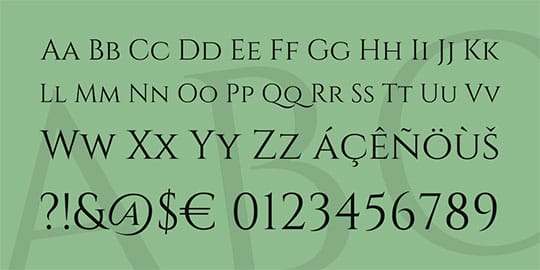
You see it on posters. You see it on banners. You see it on magazines and book covers. It’s practically everywhere.
Text is the simplest and most commonly used tool to deliver content. But plain text could easily get boring. So how do you make a simple text extraordinary? Use an awesome font. In a world of text and people with short attention span, the power of a unique font can make a huge difference.
For graphic artists and web designers, choosing a standout font is all too important. Indeed, the kind of font you use can have such an impact on the look and overall outcome of your work. Whether you’re working on logos, banners, headings, packaging or just about any creative project, you have to make sure it looks striking yet professional.
If you’re a designer or artist who’s on the lookout for some of the best fonts around, below are some you should check out right now.
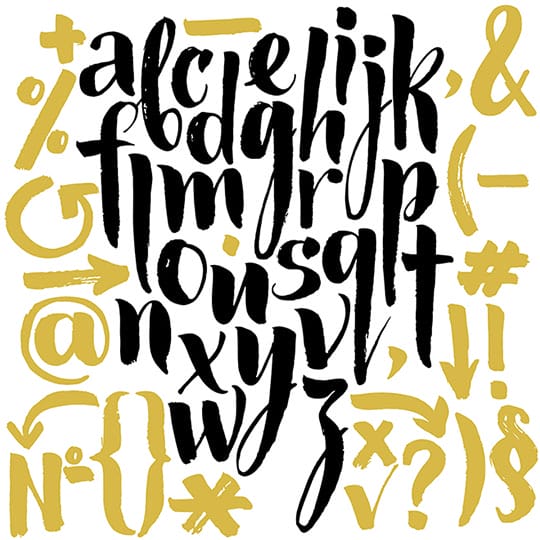
1. DENSE:
Elegant and geometric, Dense is the brainchild of Canadian artist Charles Daoud. The font is simple yet its clean thin lines make it perfect for professional projects. Dense is currently only available in Regular but the creator has said that more weights (thin and bold) will be added soon.
2. QUATTROCENTO:
This classic font is simply elegant. It is noted for the distinctive K and R tail and its tapered serifs that flow naturally. Quattrocento is formal and professional-looking which make it suitable for headlines and huge displays.
3. BRUSHER:
With its smooth bold strokes, Brusher is an artsy brush-lettered font that is great for printing, lettering projects and branding. Its uneven look give it a naturally hand-written appearance. Designed with precise strokes, Brusher looks just like a masterpiece of a calligraphy expert.
4. BELLICO:
Bellico is an elegant script typeface with many alternates available making it perfect for various creative projects. The best thing about this font is that it comes with bonus ornaments and underlines. With its alternates and ornaments, Bellico is a great choice for posters, logos, headlines and a lot more.
5. BALQIS:
Balqis is a fantastic example of calligraphic style with its feminine smooth strokes. It’s casual yet classy. This font is noted for its high contrast and legibility. Balqis is the font of choice for greeting cards, wedding invitations, logos and book covers.
6. CLAIRE HAND:
Those who are aiming for a naturally hand-written look will find just what they need in Claire Hand. This font is neat, clean and fun. Claire Hand is great for infographics, posters, greeting cards and other sorts of creative projects. It comes in three different weights: light, regular and bold.
7. STELLAR:
Stellar is slick and legible. Its personality brings life to galactic ideas and celestial projects making it a useful tool for designers and graphic artists. The stylish font comes in four weights: regular, light, medium and bold.
8. SOUL MISSION:
One of today’s most popular grunge fonts, Soul Mission is widely used in blogs, magazines, posters, videos and logos. The good thing is that the font has been made available for free by the artist and creator himself. This cool font can be used for commercial and personal projects.
9. KILAUEA:
Compared to the other fonts in this post, Kilauea has a different look and feel. Its serifs and corrugated lines can easily remind you of Hawaii or the surf culture in general. The font’s outdoor vibe makes it a superb choice for projects involving travel, beach and adventure.
10. YEAH PAPA:
Yeah Papa is that font you can just have fun with. Its bold uneven letters make it look like it’s hand-written. This cool font has a certain summer feel to it, reminding you of a day out in the sun or a music festival, carefree and fun.
11. ANSLEY DISPLAY:
Ansley Display is a retro-inspired font that is an excellent option for commercial and non-commercial purposes. With its smooth and solid lines, the font is suited for branding, headlines, infographics and large displays.
Conclusion: